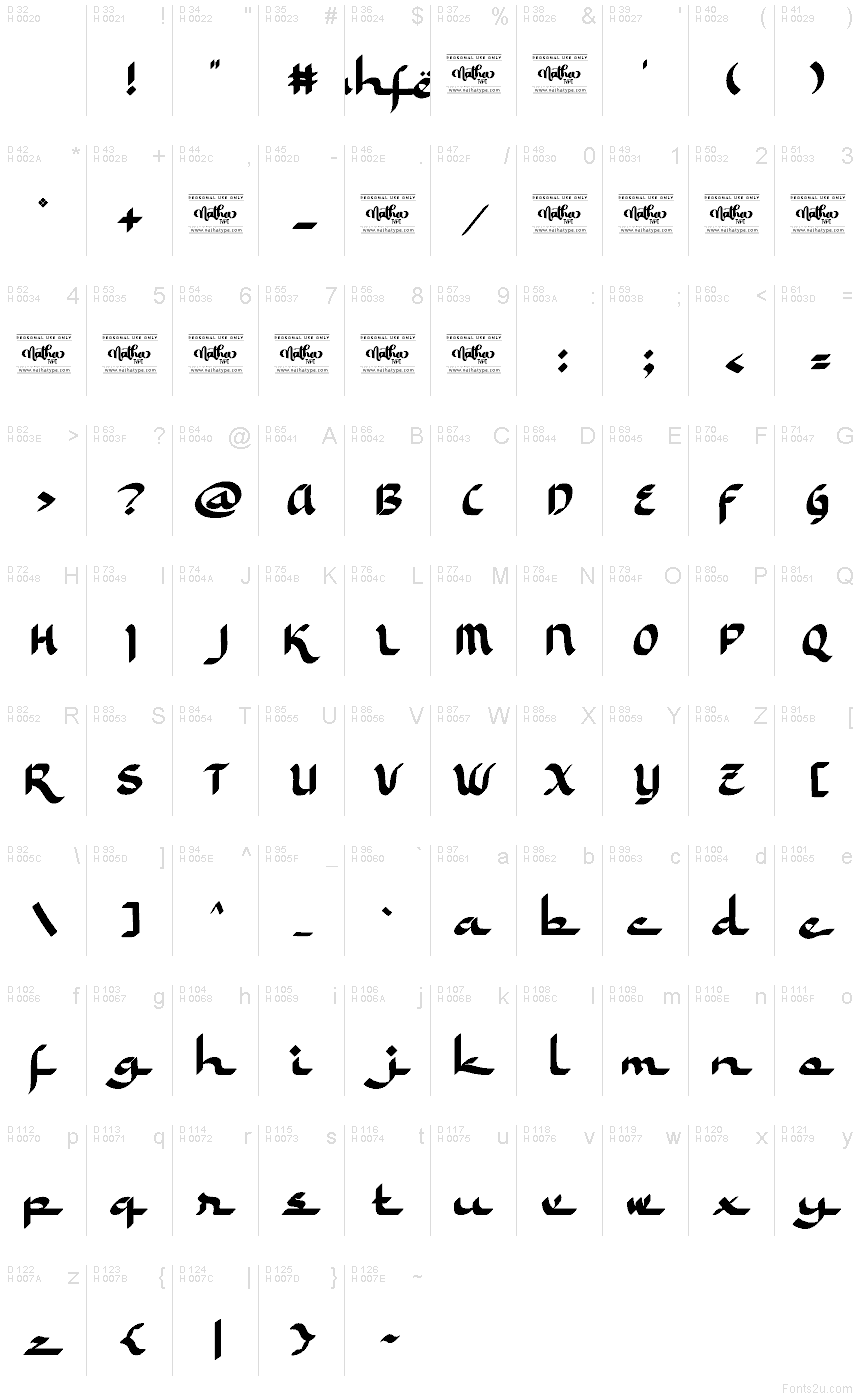
Kahfee Personal Use
Kahfee font by Nathatype is a free Arabic‑style script font that twists Latin forms with calligraphic sweep. Thick, inky strokes taper to knife‑edge terminals, while a ribbon‑like flow links letters into a sinuous rhythm. It stands out with dramatic contrast and a low, wavey baseline that feels hand‑brushed yet sharply controlled.
Using Kahfee, headlines gain an immediate cinematic flair—great for café logos, boutique branding, album art, event posters, packaging, and expressive social posts. This free font shines when set large with a touch of extra tracking to show off those swoops; pair it with a clean, unobtrusive sans for body text to keep the spotlight on its sculpted curves.